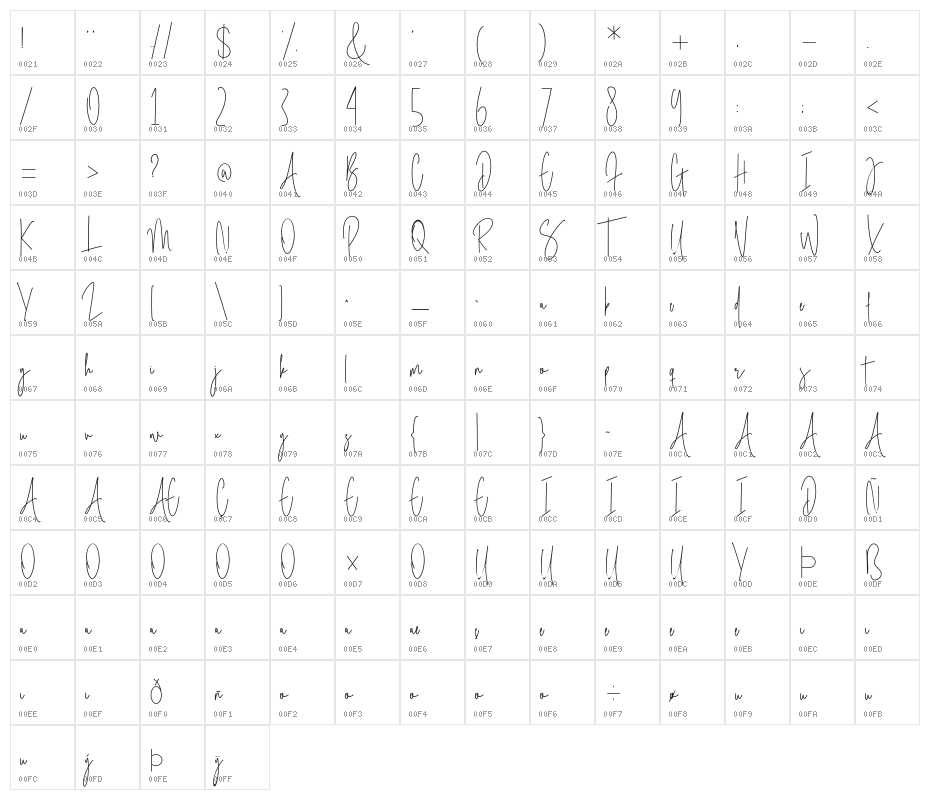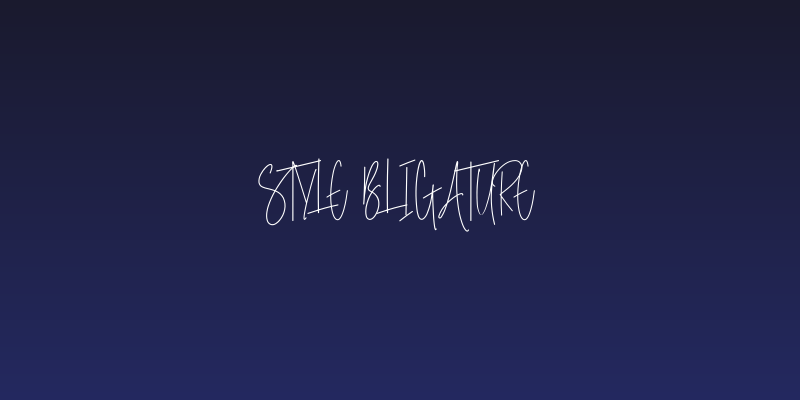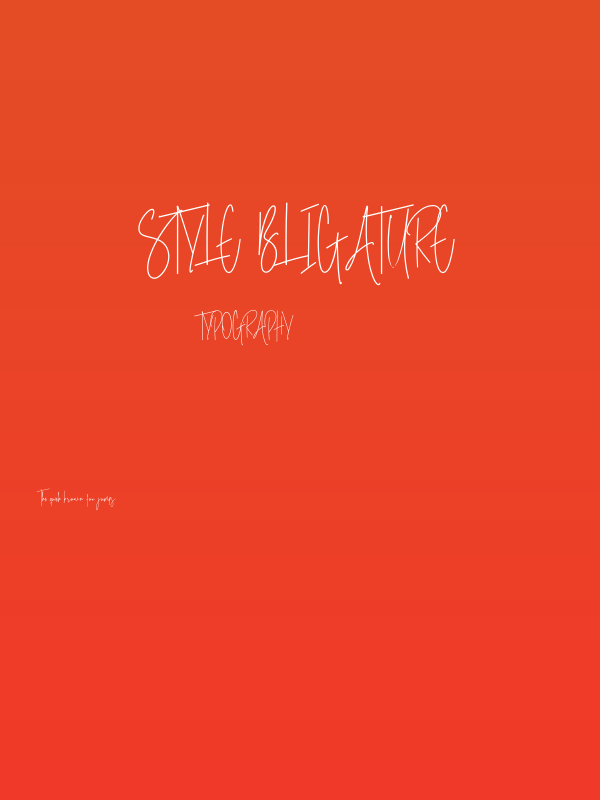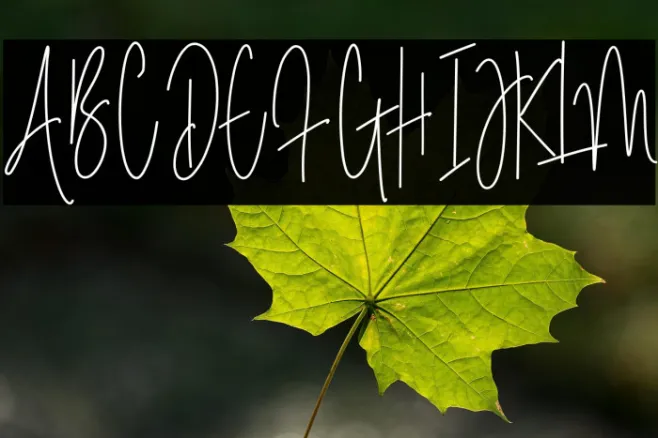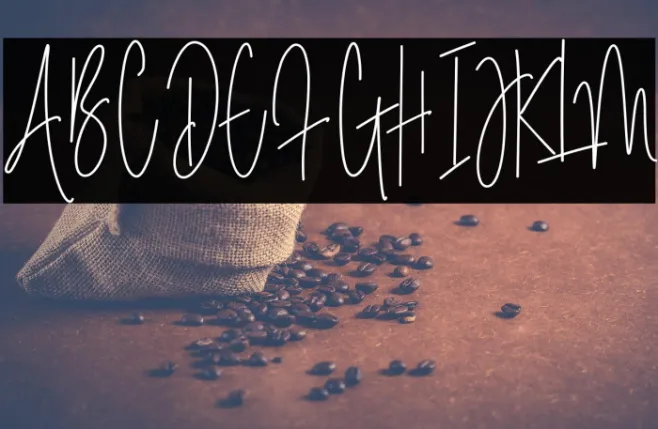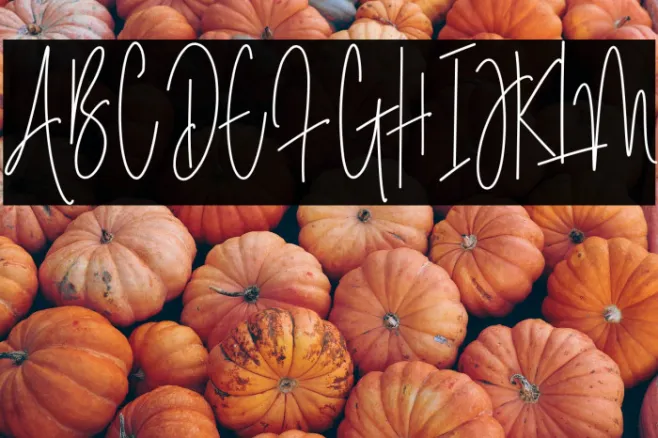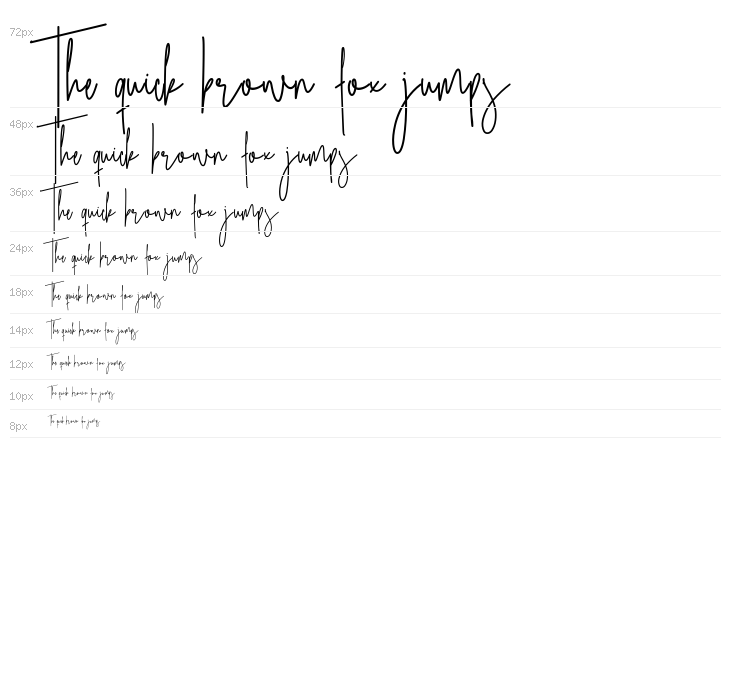
Style Bligature Font
Style Bligature Description
This font features an elegant and flowing script style with elongated, looping strokes that give it a whimsical and artistic appearance. The uppercase letters are tall and slender, with a distinctive flair that adds a touch of sophistication. The lowercase letters maintain a consistent fluidity, enhancing the overall graceful look. Numbers and special characters are designed with the same attention to detail, ensuring a cohesive visual experience. The font's thin lines and airy spacing contribute to its delicate and refined aesthetic, making it suitable for creative and decorative purposes.
| Proposed Projects | Ideal for wedding invitations, greeting cards, branding, and artistic projects. |